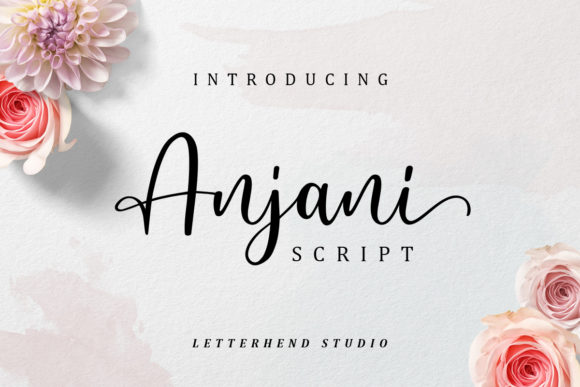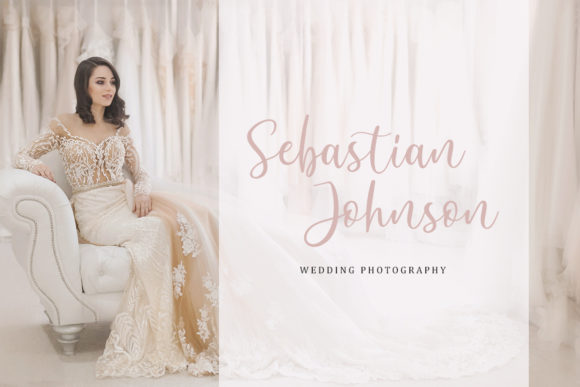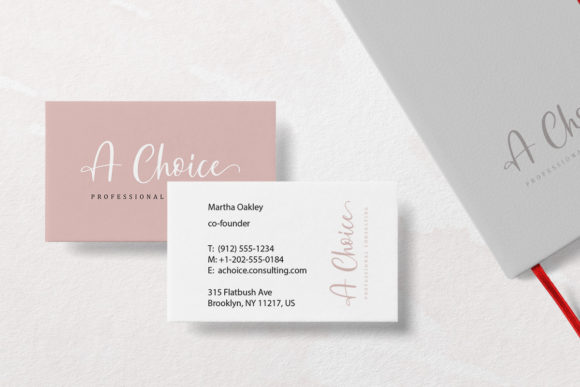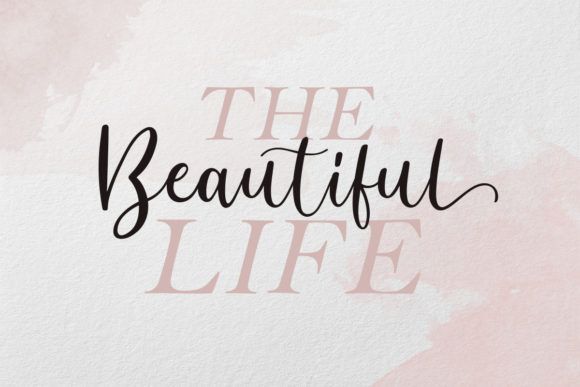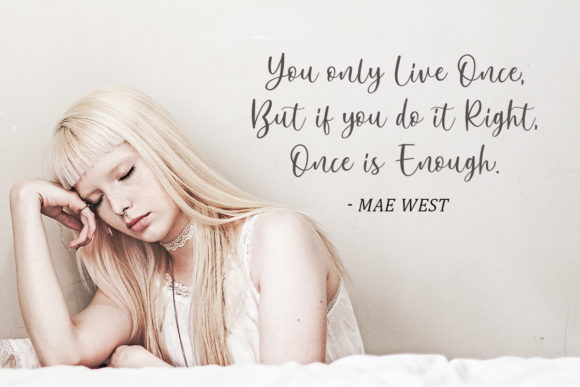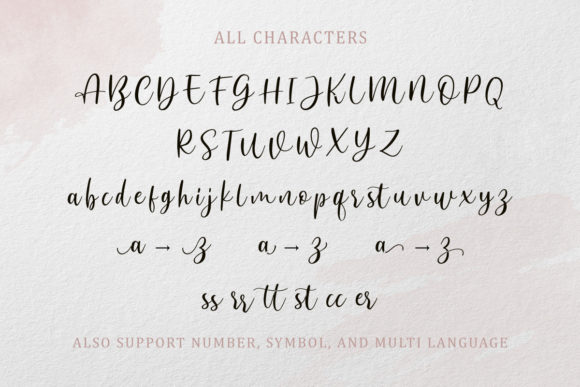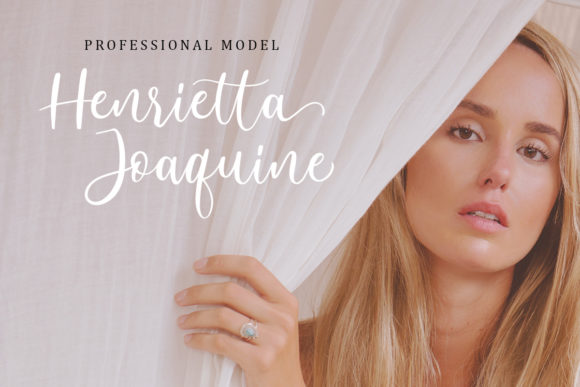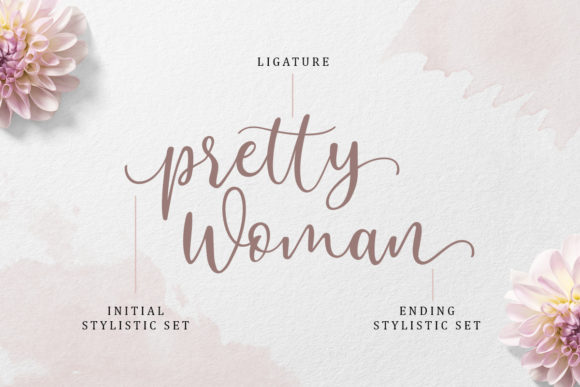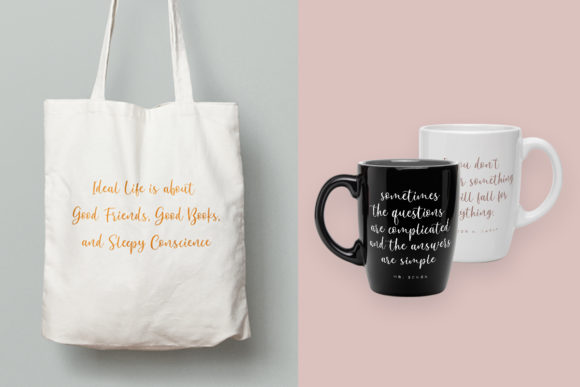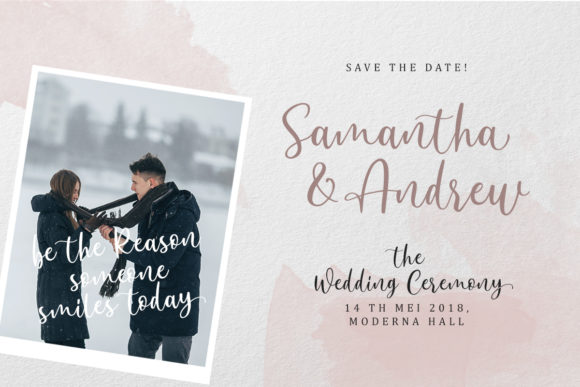
Anjani Script Font
About Anjani Script Font
Anjani is a modern handwritten font with a stunning feel. It includes uppercase & lowercase letters, punctuations, symbols & numerals, stylistic set alternate, and authentic ligatures!